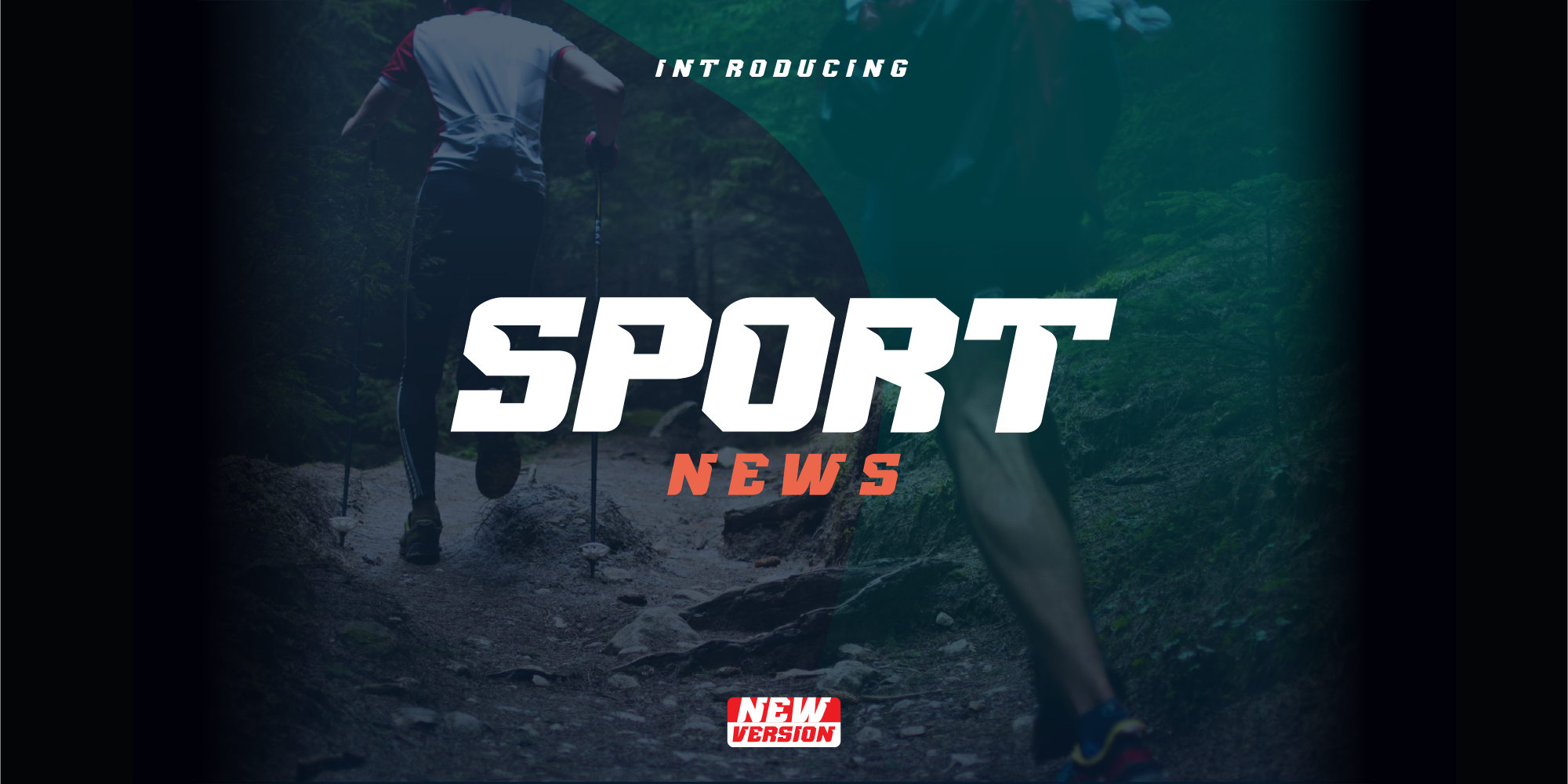
Sport News Font is perfect for sports journalism websites, athletic news publications, competitive sports broadcasting, stadium scoreboards, sports magazine headlines, athletic event promotions, championship announcements, and dynamic sports media campaigns.
This font is exciting because it embodies breaking news energy with athletic authority and sports journalism sophistication. Sport News Font features bold, headline-inspired letterforms with press urgency that capture the essence of live sports reporting and competitive action, making it ideal for projects that require authentic sports media character and journalistic impact.
The Sport News Font family includes regular, condensed, bold, and headline variants, along with sports-inspired alternates and news ligatures that enhance its journalistic character. Each weight maintains the font's authoritative aesthetic while providing different levels of sports expression for various athletic and media design applications.
Whether you're developing powerful sports media brands, creating compelling athletic materials, or designing dynamic sports campaigns, Sport News Font Free Download delivers exceptional authority and sports appeal. Its distinctive journalistic style makes it an excellent choice for designers seeking to add genuine sports media credibility and athletic sophistication to their projects. The font's versatility extends from sports website headers to championship event signage, ensuring consistent performance across all athletic applications. With its authoritatively crafted letterforms and sports proportions, this typeface provides professional results that energize sports fans and establish powerful media presence with its unmistakable athletic character and dynamic sports journalism elegance.